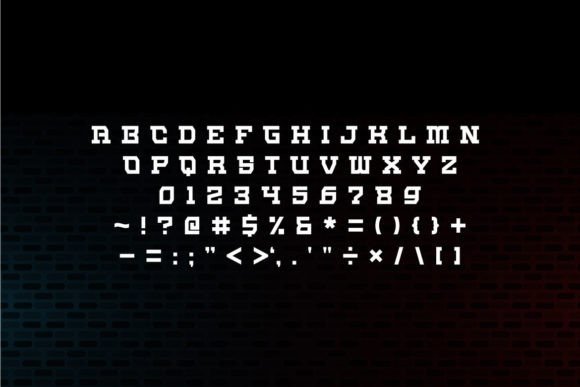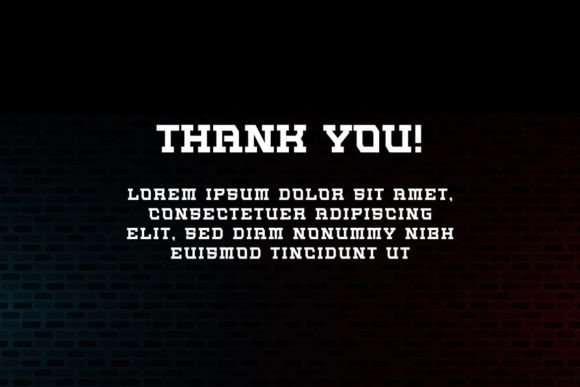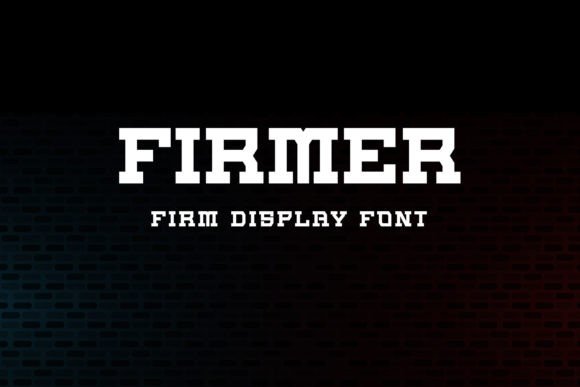
Introducing Firmer Font: Elevate Your Designs with Modern Elegance
In the world of design, typography plays a crucial role in conveying messages, evoking emotions, and capturing attention. A well-chosen font can make all the difference in transforming a good design into a great one. If you’re a designer, crafty enthusiast, or simply someone who appreciates beautiful typography, you’re in luck! We’re excited to introduce Firmer Font, a modern, clean, and eye-catching display font that’s perfect for a wide range of creative projects.
What is Firmer Font?
Firmer Font is a stylish and versatile display font designed to make a statement. Its clean lines, elegant curves, and precise craftsmanship make it an ideal choice for creating stunning visual content. Whether you’re working on posters, cards, book titles, headlines, news articles, banners, flyers, stationery, or any other design project, Firmer Font is sure to impress.
Key Features of Firmer Font
• Modern and Clean Design: Firmer Font boasts a sleek and contemporary design that’s perfect for creating fresh and modern visuals.
• Elegant and Eye-Catching: The font’s elegant curves and precise lines make it stand out from the crowd, grabbing attention and leaving a lasting impression.
• Versatile: Firmer Font is suitable for a wide range of design projects, from print materials like posters and flyers to digital applications like social media graphics and website headers.
• Easy to Read: Despite its elegant design, Firmer Font remains highly legible, making it perfect for use in body text, headlines, and titles.
Why Choose Firmer Font?
With so many fonts available, why choose Firmer Font? Here are just a few reasons why designers and crafty enthusiasts love Firmer:
• Unique and Distinctive: Firmer Font offers a fresh and unique perspective on modern typography, setting it apart from more traditional fonts.
• High-Quality Design: Crafted with precision and attention to detail, Firmer Font is a high-quality font that’s sure to elevate your designs.
• Constantly Updated: The creators of Firmer Font are committed to continually updating and improving the font, ensuring it stays fresh and relevant.
To get the most out of Firmer Font, here are a few ideas and inspiration to get you started:
• Posters and Flyers: Use Firmer Font to create eye-catching posters and flyers that grab attention and communicate your message.
• Book Titles and Headlines: Add a touch of elegance to your book titles and headlines with Firmer Font’s clean and modern design.
• Branding and Logos: Experiment with Firmer Font to create unique and memorable branding and logos that reflect your brand’s personality.
Font Name Firmer Font
Author Mightyfire
Firmer Font is a game-changing display font that’s perfect for designers, crafty enthusiasts, and anyone looking to elevate their designs with modern elegance. With its clean lines, elegant curves, and precise craftsmanship, Firmer Font is sure to become a staple in your fonts library. So why wait? Download Firmer Font today and start creating stunning visual content that leaves a lasting impression!